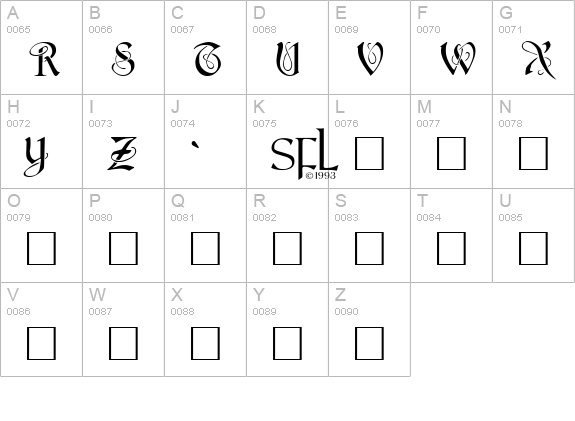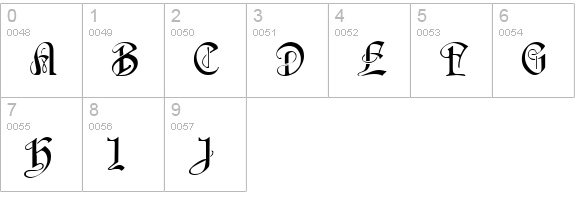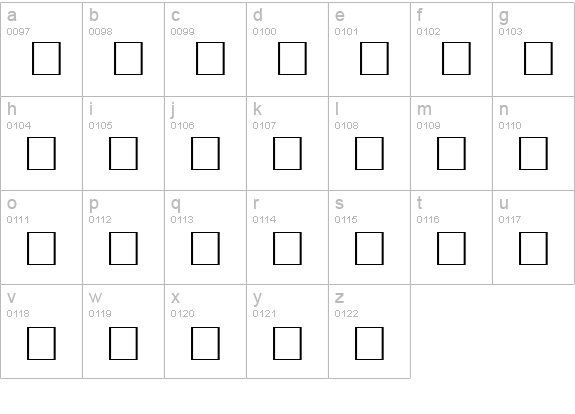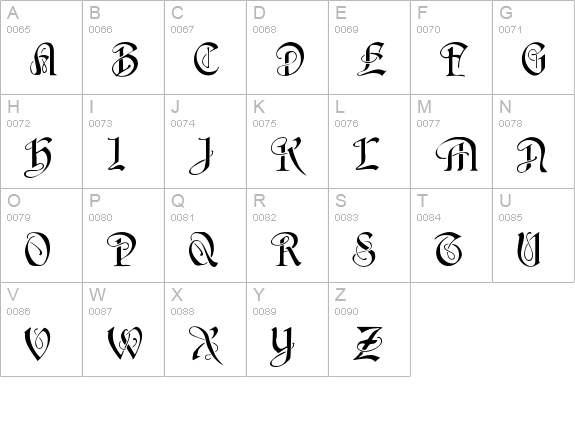
Bastille Font Details
Bastille font exudes a timeless elegance with its classic yet modern design. This versatile typeface features clean lines and sharp angles, making it perfect for a wide range of design projects. Whether you're creating a sophisticated logo, elegant wedding invitations, or eye-catching posters, Bastille font will bring a touch of refinement to your work. What sets Bastille font apart is not just its striking aesthetics, but also its accessibility. This exquisite font is available for free download at FontsMarket.com, allowing designers and creatives of all levels to easily incorporate its beauty into their projects. With its seamless compatibility across various design software and platforms, Bastille font empowers you to unleash your creativity without any barriers. Embrace the sophistication and style of Bastille font in your next project and watch as it elevates your design to new heights. Download this exceptional typeface for free today at FontsMarket.com, and let your creativity soar.